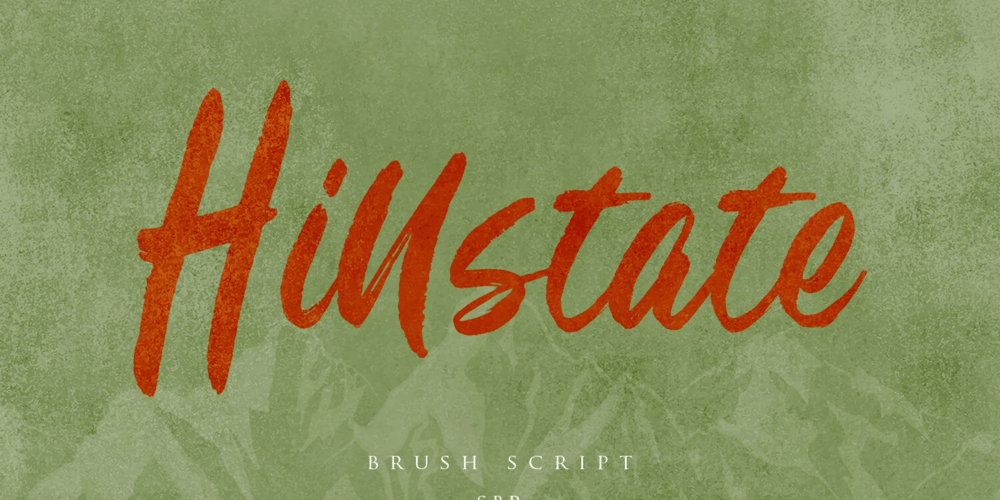
Hillstate
Hillstate font
Hillstate Font Family was designed by Irpan Maulana and published by Sabrcreative. Hillstate contains 1 styles and family package options. Elevate your designs with the captivating charm of Billbest Brush Script Font. This versatile typeface combines the free-flowing elegance of brush strokes with a modern twist, making it a perfect choice for adding an artistic touch to your projects. Whether you’re designing logos, branding materials, posters, or invitations, Billbest offers a seamless blend of lowercase and uppercase letters that create a harmonious and balanced visual appeal.